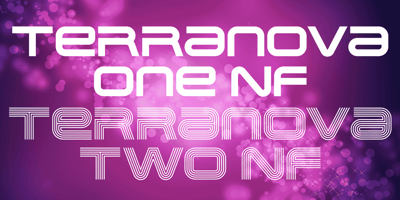
Terranova NF
Terranova NF font
Terranova NF Font Family was designed by Nick Curtis, Dan X. Solo and published by Nick’s Fonts. Terranova NF contains 2 styles and family package options. Another Dan X. Solo find, prosaically named Earth, provided the pattern for this family of futuristic fonts with a strong retro vibe. Both flavors of this font feature the 1252 Latin, 1250 Central European, 1254 Turkish and 1257 Baltic character sets.